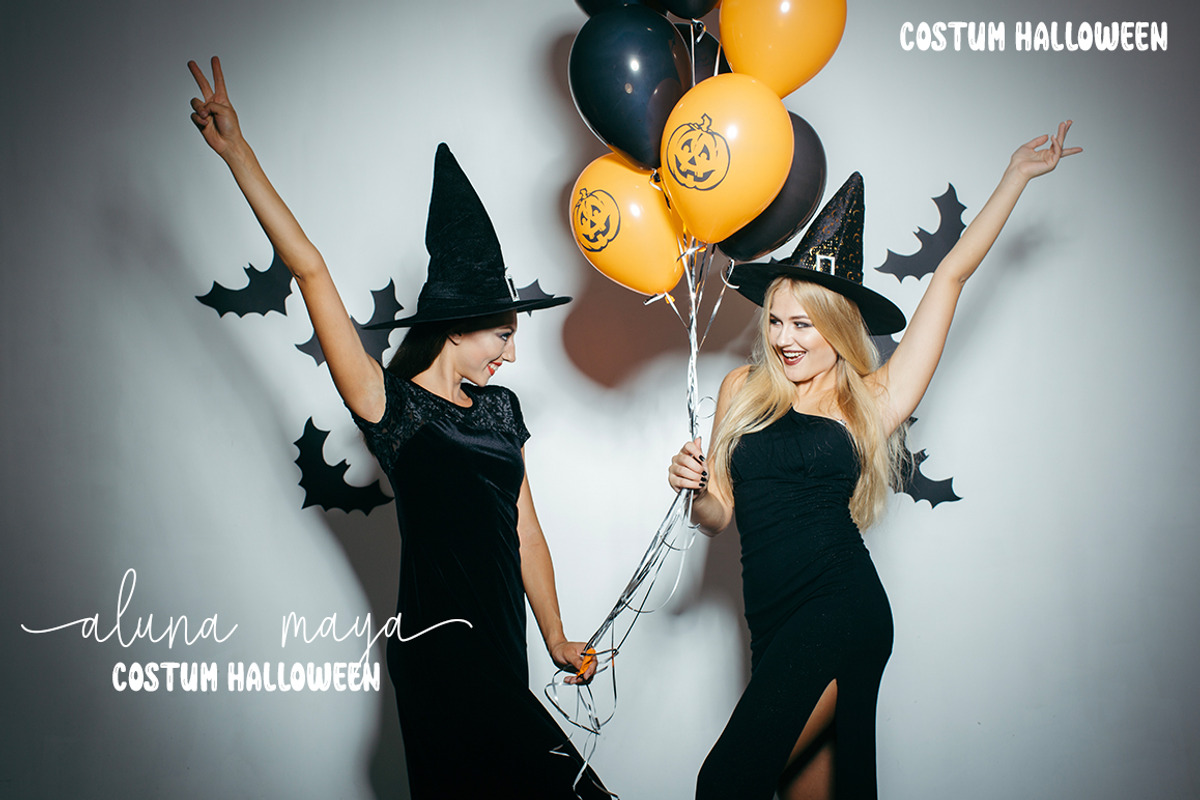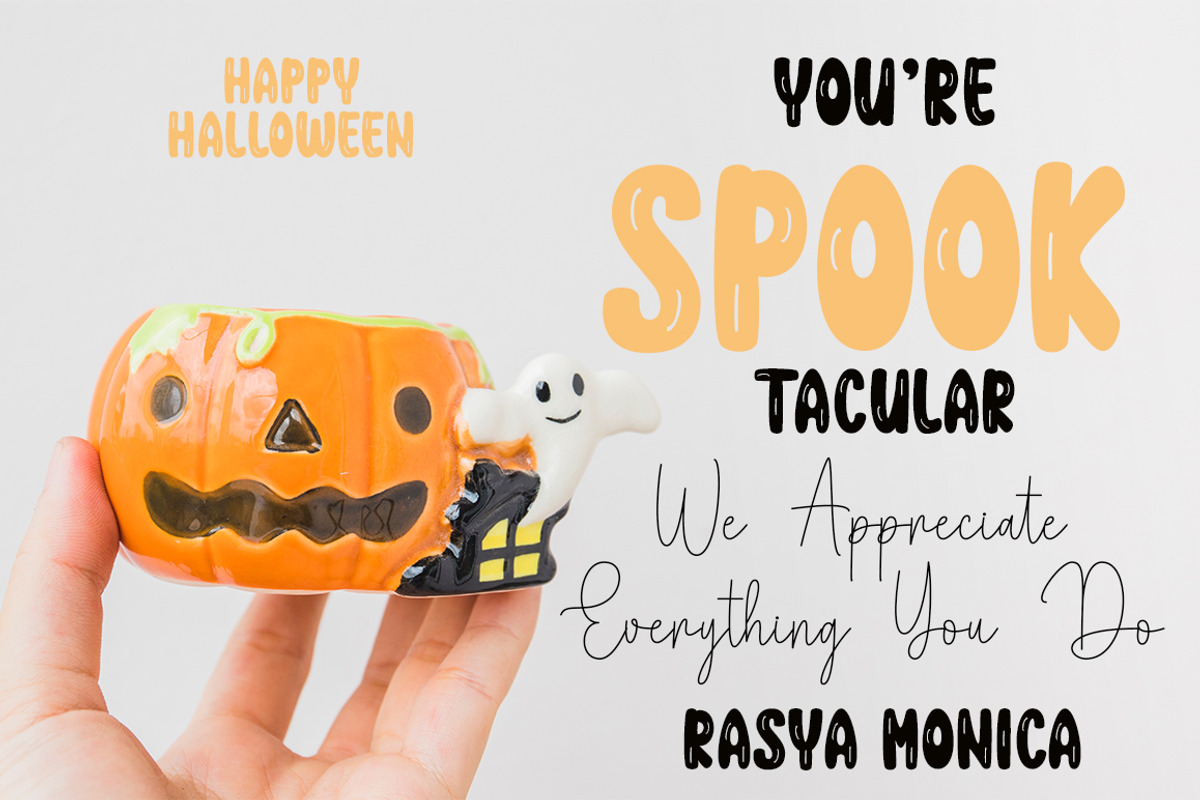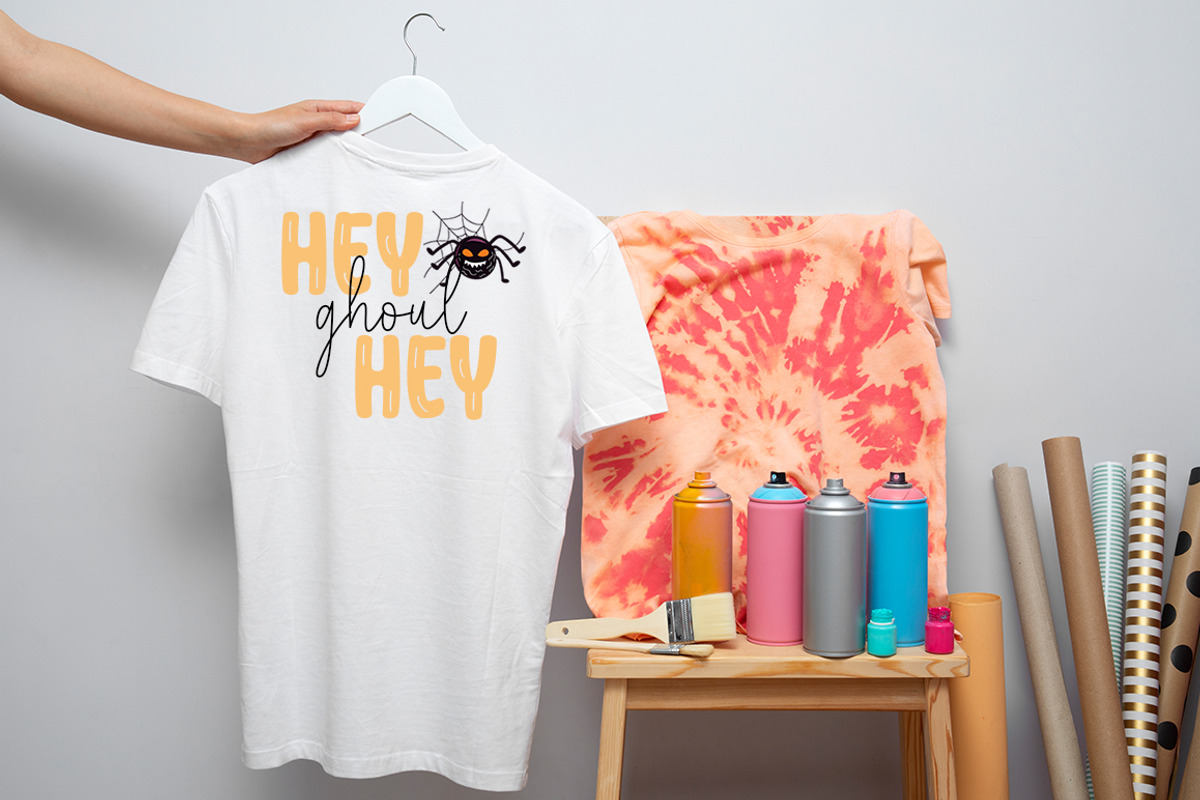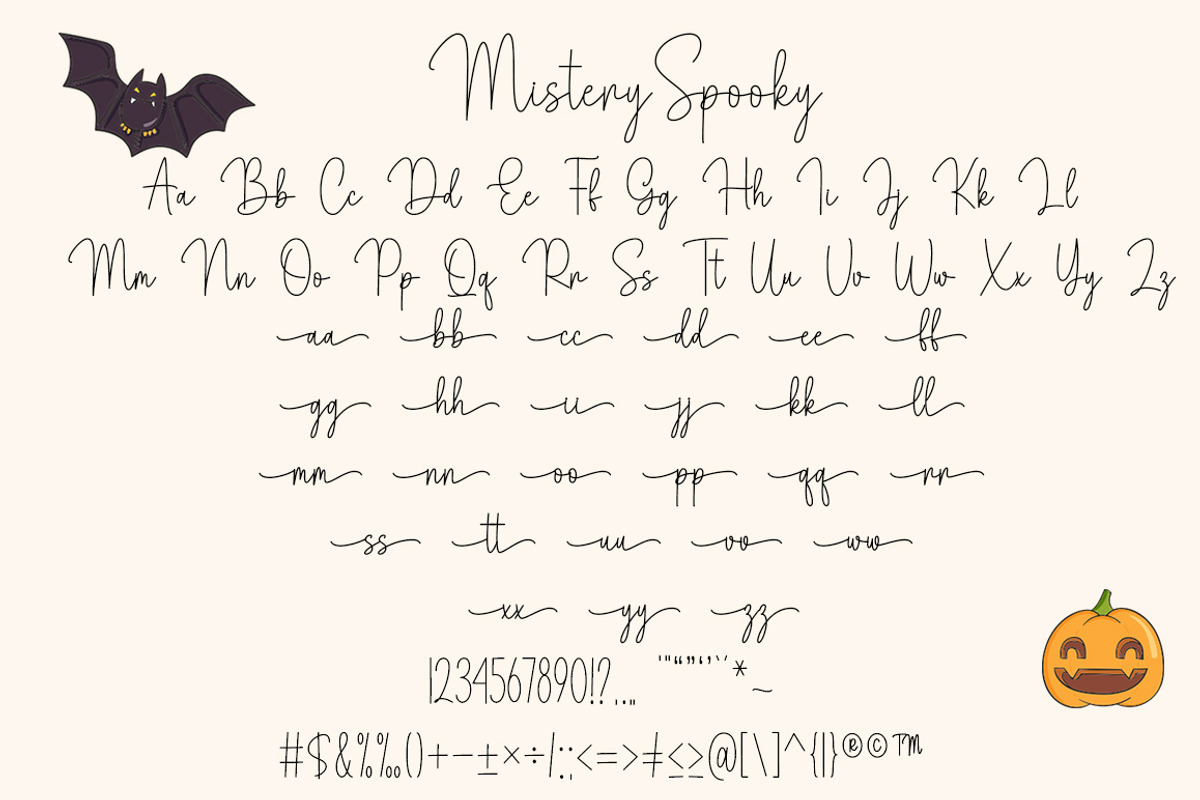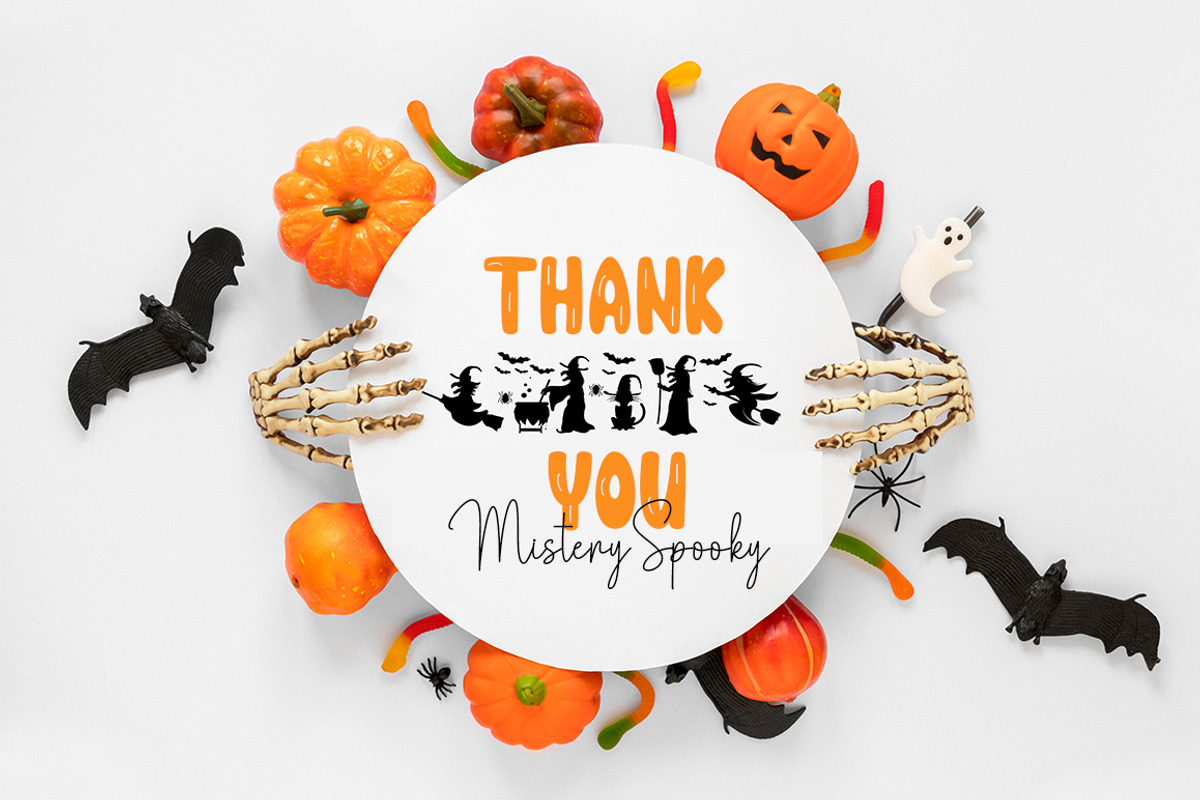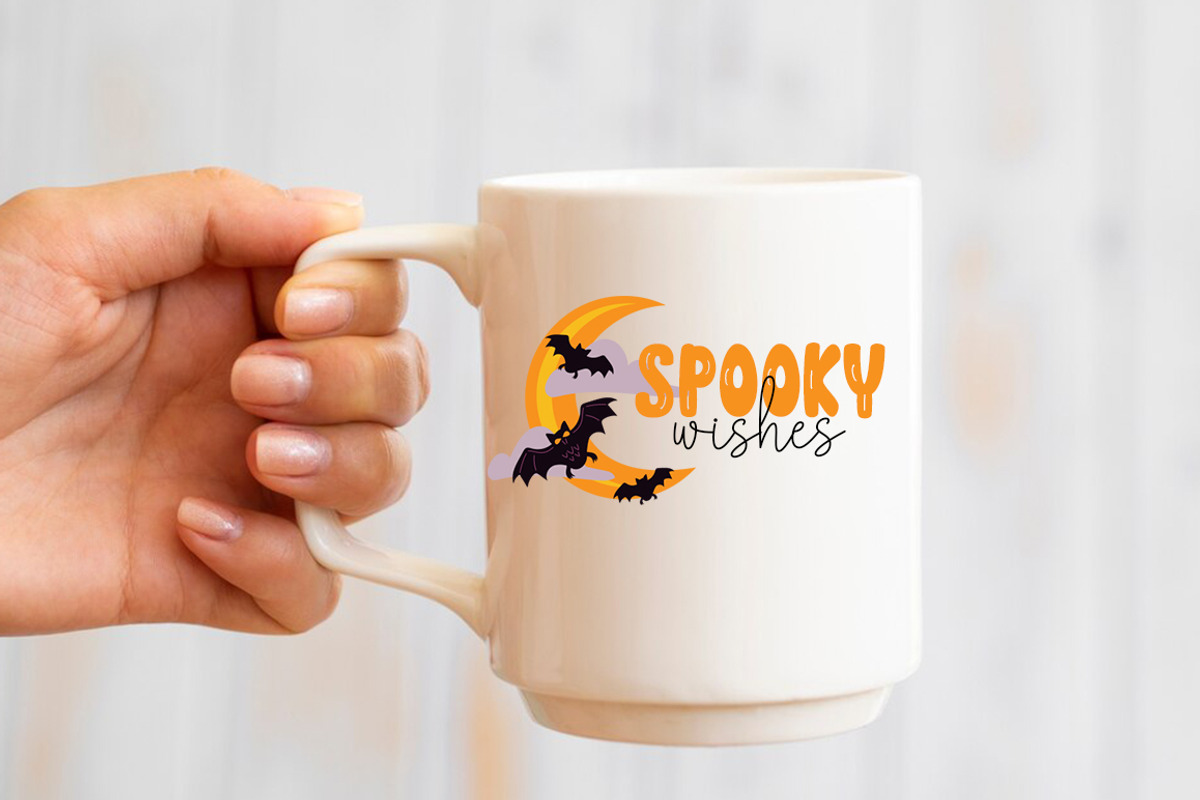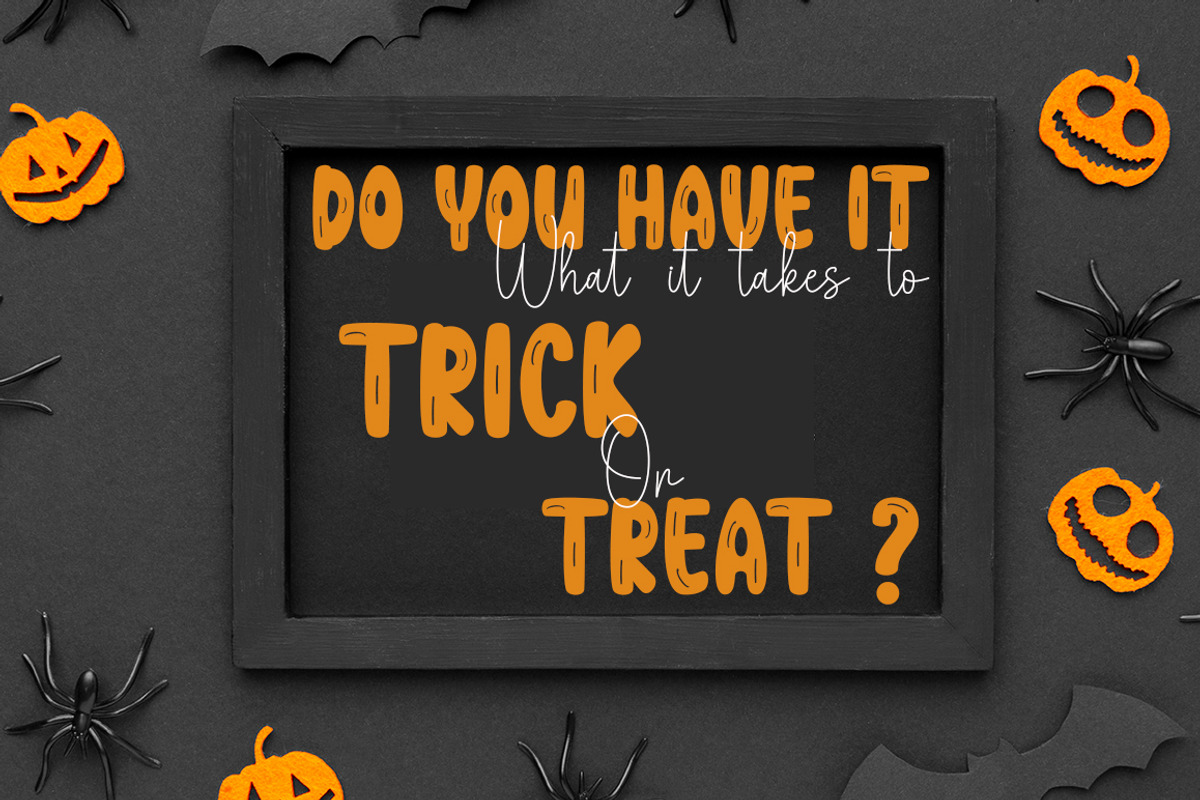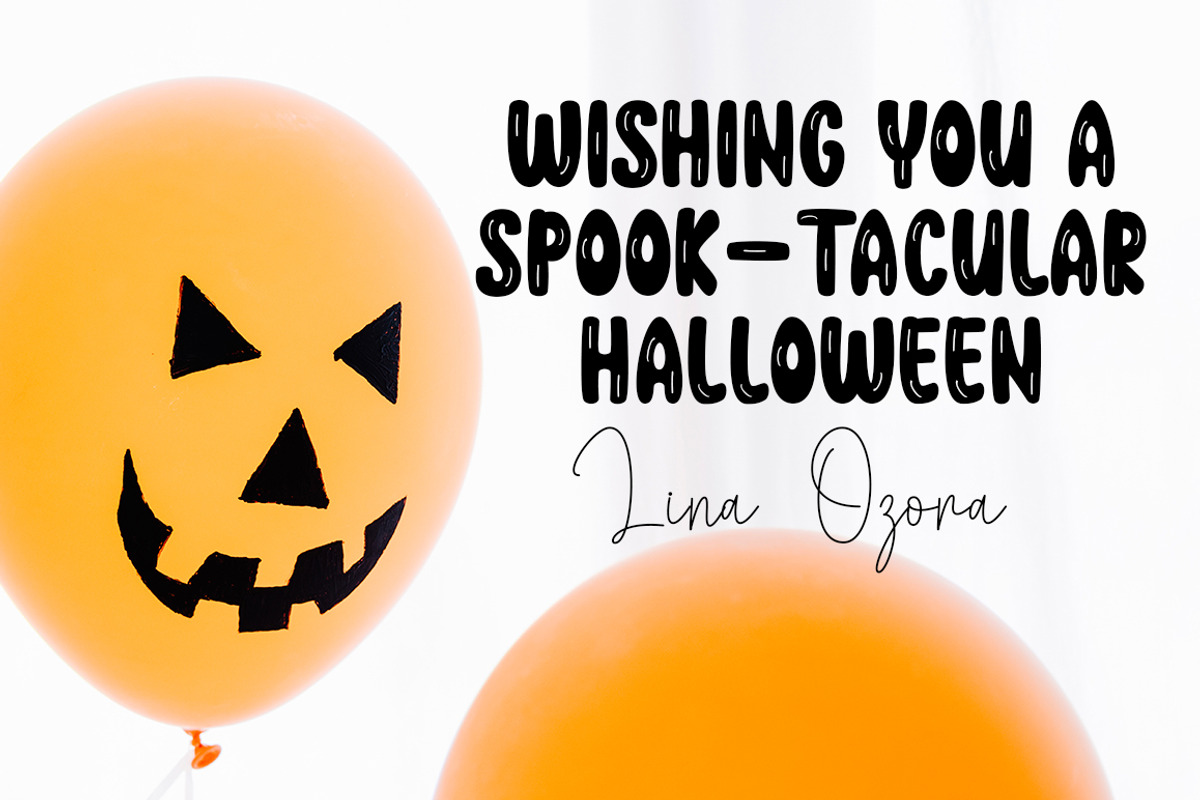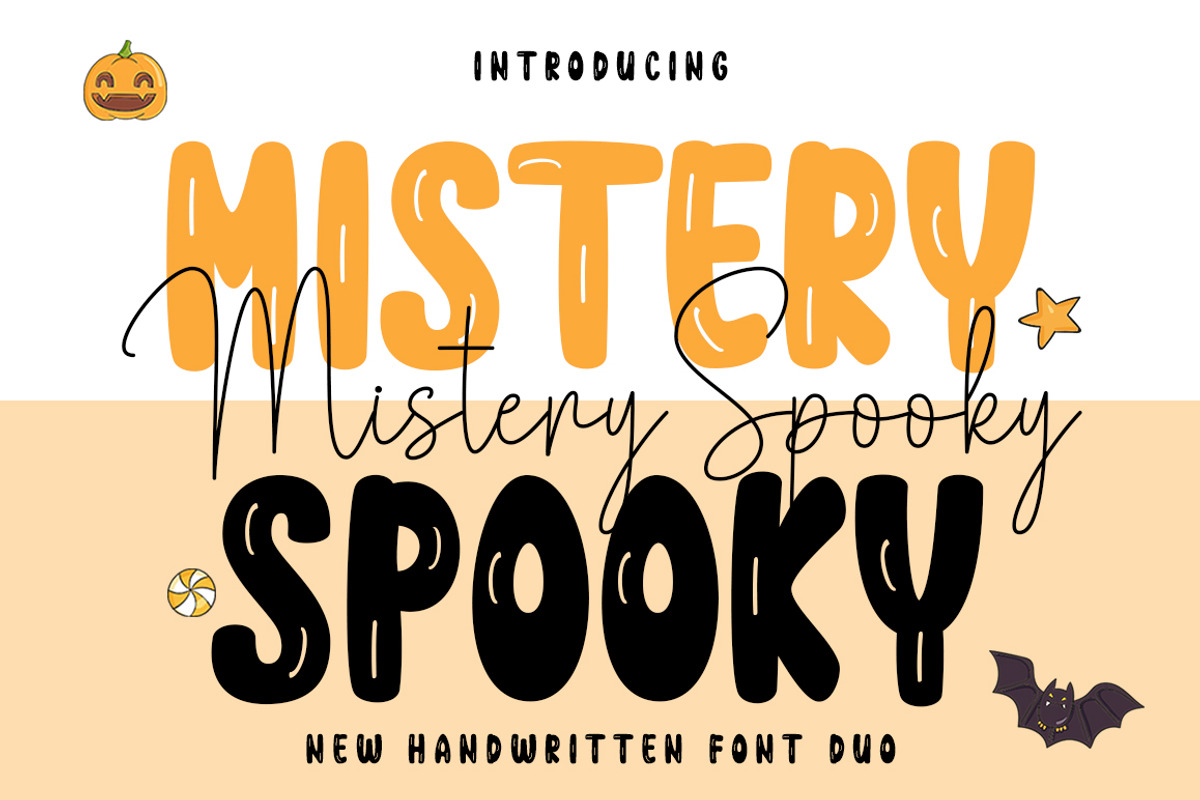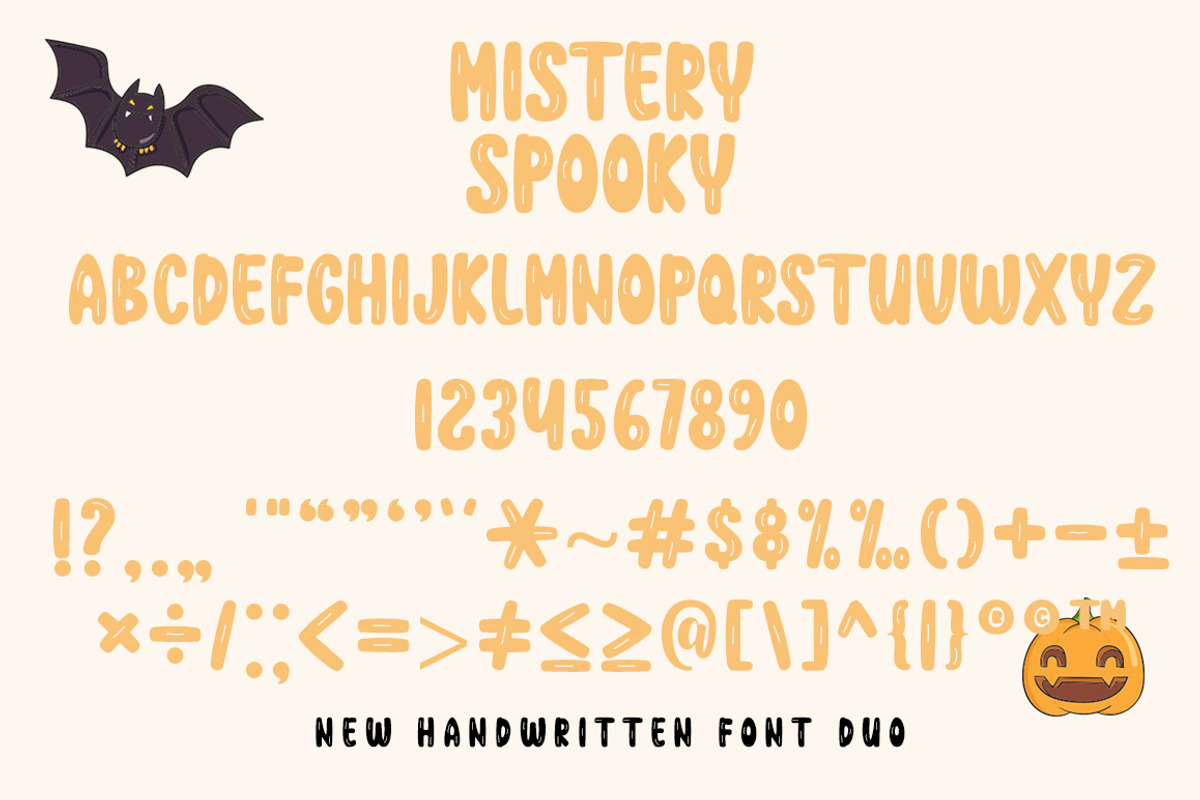
Mistery Spooky Duo
Mistery Spooky Duo is a stylish and delicate duo font (sans serif and script) suitable for a wide spectrum of applications. From greeting cards to headlines, this font will guarantee a romantic touch to each of your creations! Mistery Spooky Duo is PUA encoded which means you can access all of the glyphs and swashes with ease.